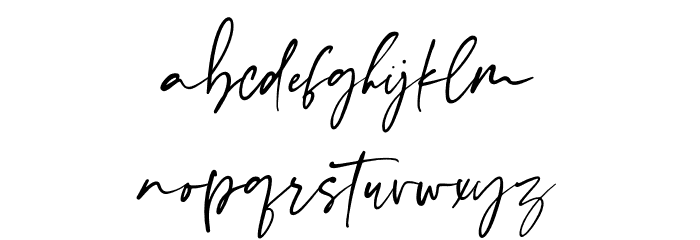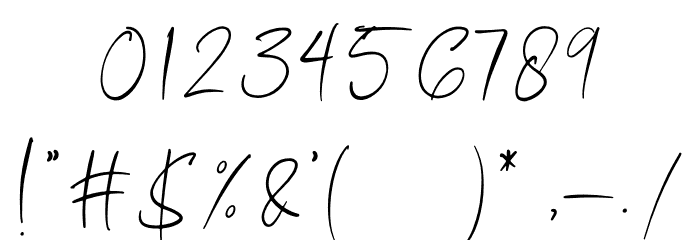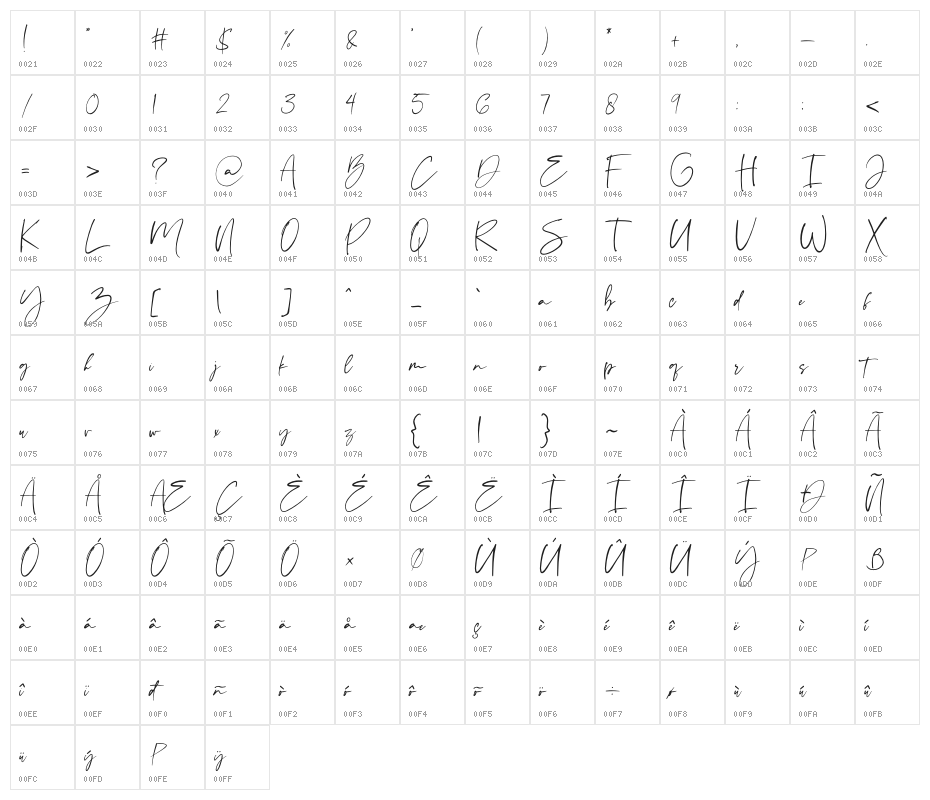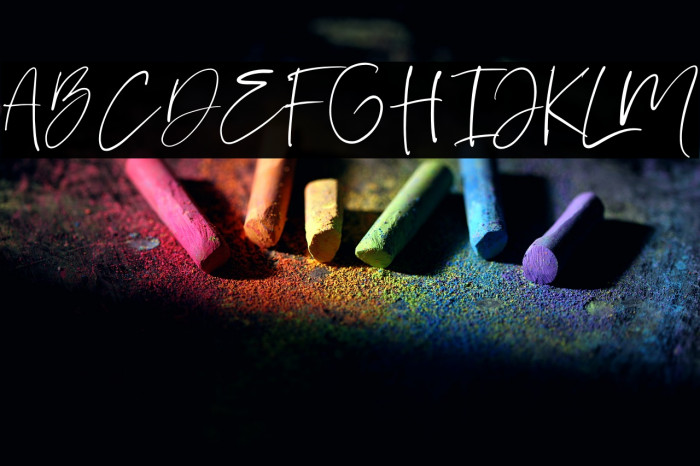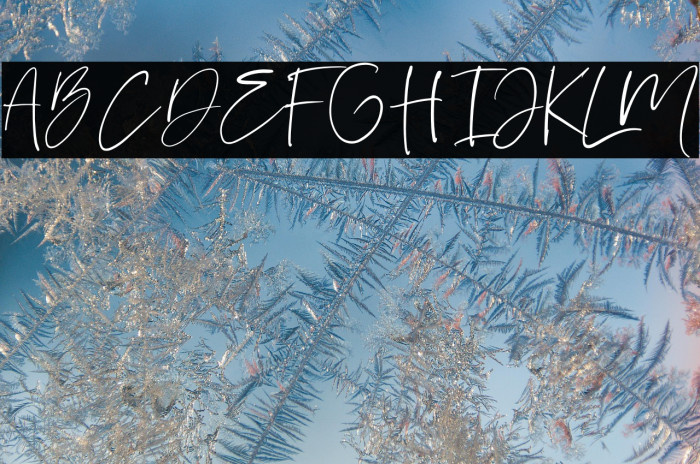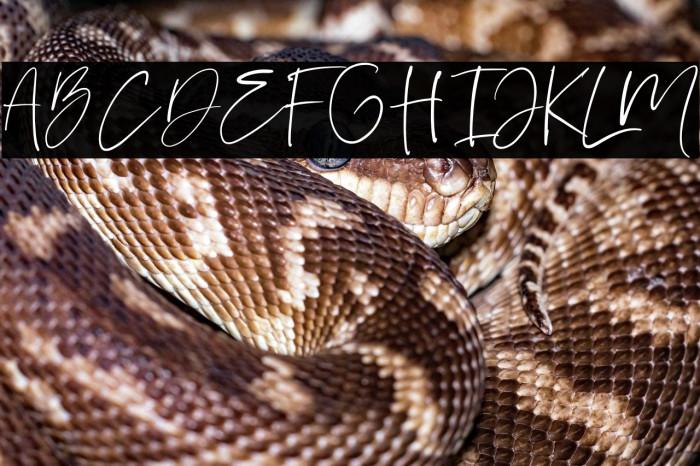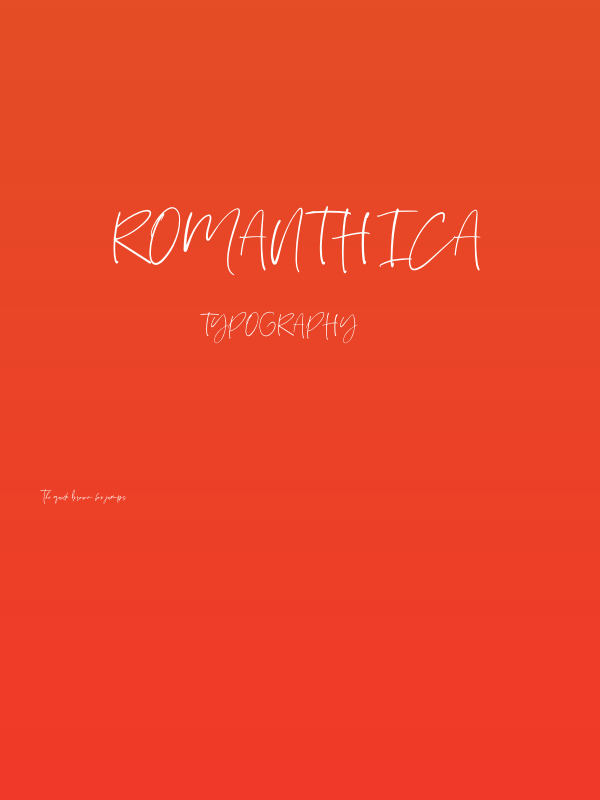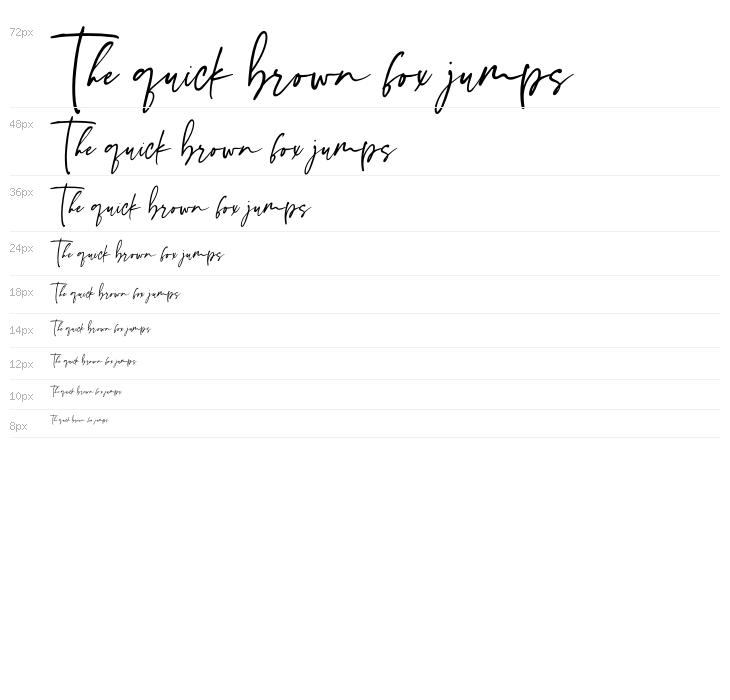
romanthica Font
This font features a flowing, cursive style with a modern twist. The uppercase letters are elegantly elongated, with a slight slant that adds a dynamic feel. The lowercase letters maintain a consistent fluidity, creating a harmonious balance between each character. Numbers are clear and legible, while special characters retain the same graceful style. The overall look is sophisticated yet approachable, making it suitable for a variety of design projects. The strokes vary in thickness, providing a medium contrast that enhances readability without sacrificing style.
A modern, cursive font with elegant, flowing characters and medium contrast.
- Proposed Projects: Ideal for wedding invitations, branding, social media graphics, and elegant packaging designs.
- Use Case: Logos, Invitations, Social Media Graphics